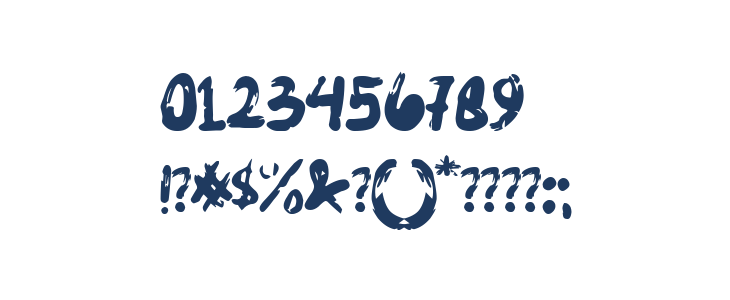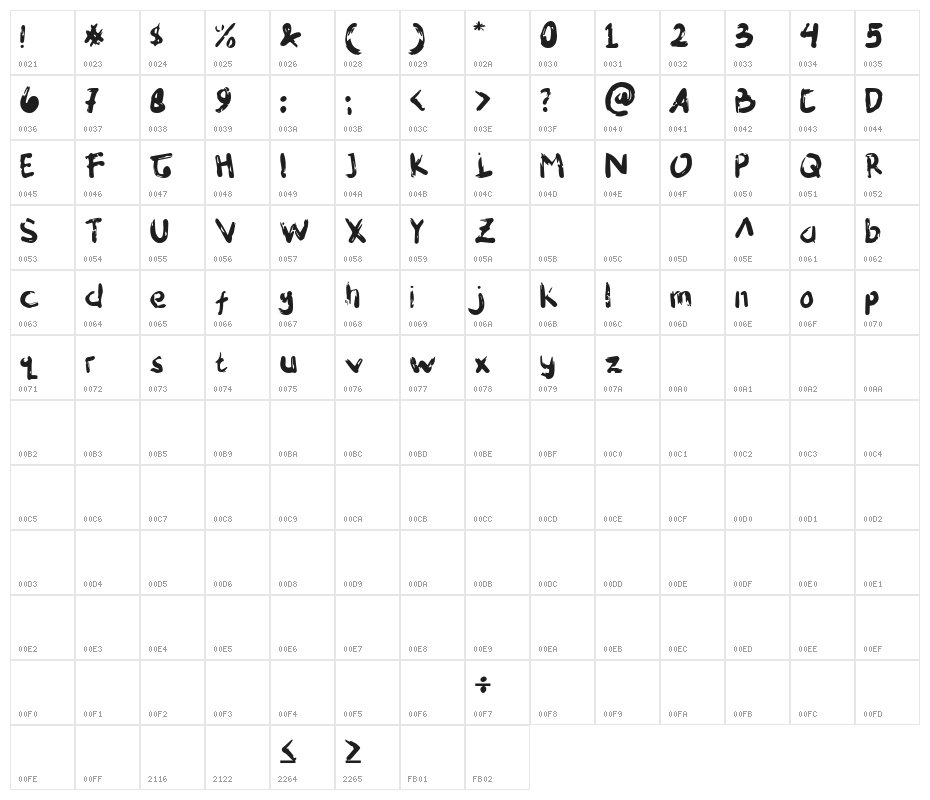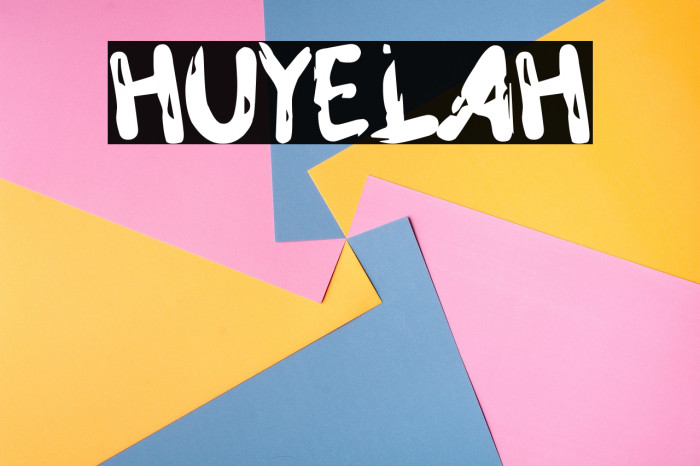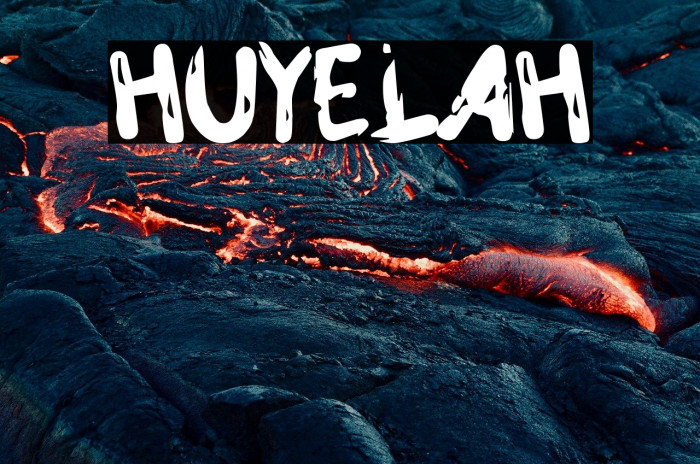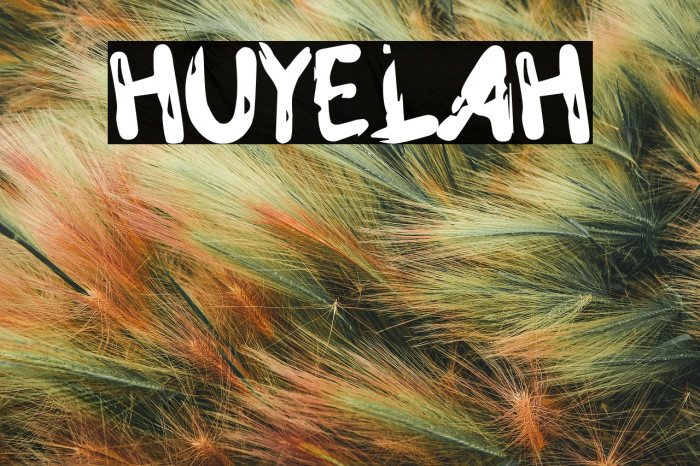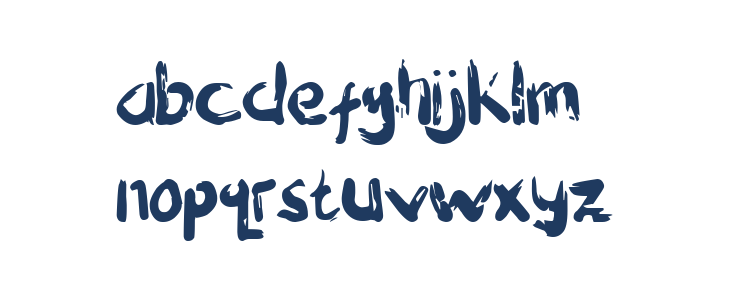
HUYELAH Font
HUYELAH Description
This font exhibits a bold and expressive style, characterized by its brush-like strokes and dynamic, energetic appearance. The letters have an irregular, hand-painted look, with varying thicknesses that give it a lively and artistic feel. The uppercase and lowercase letters maintain a consistent style, while the numbers and special characters complement the overall aesthetic. The font's design is reminiscent of graffiti or street art, making it stand out with its unique and creative flair.
| Proposed Projects | Ideal for projects that require a creative and dynamic touch, such as posters, album covers, street art designs, and branding for edgy or artistic ventures. |